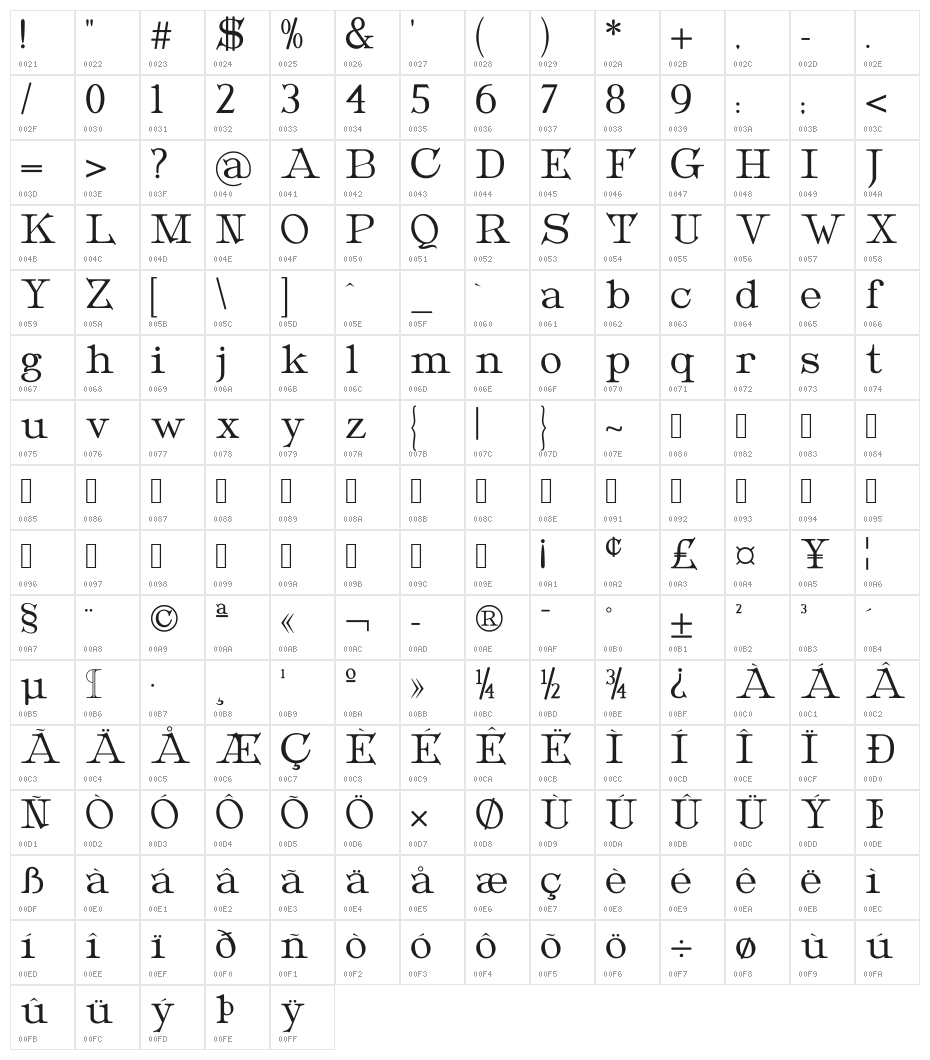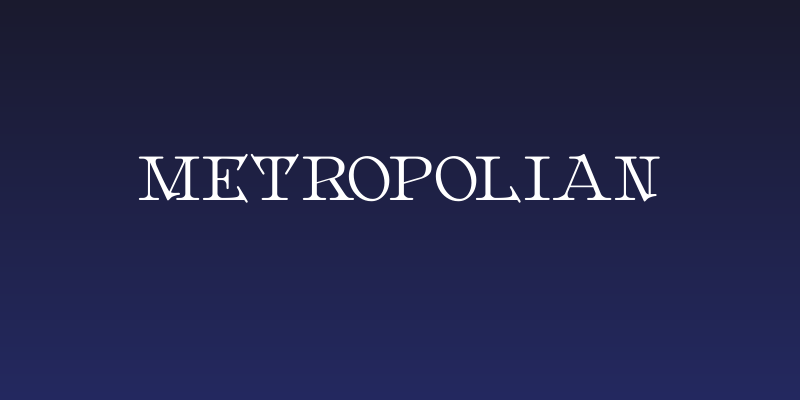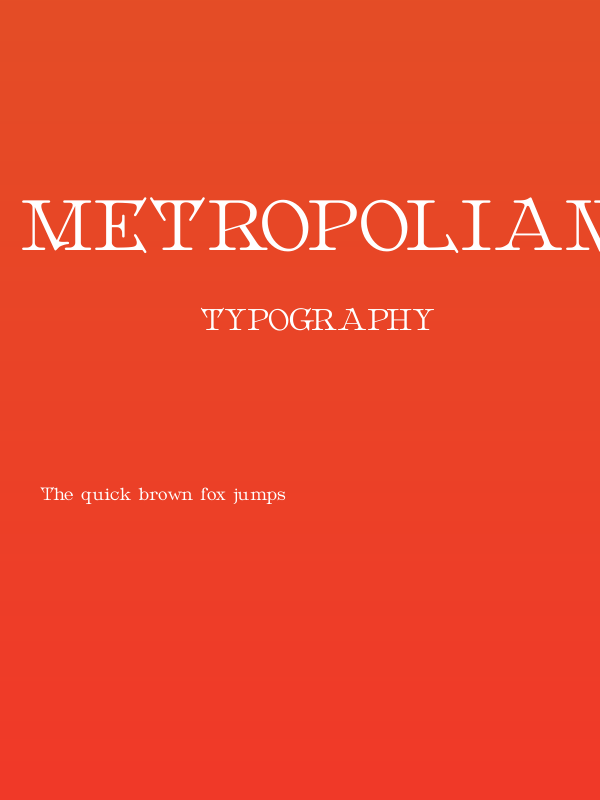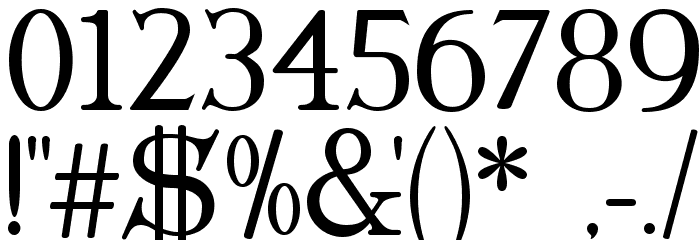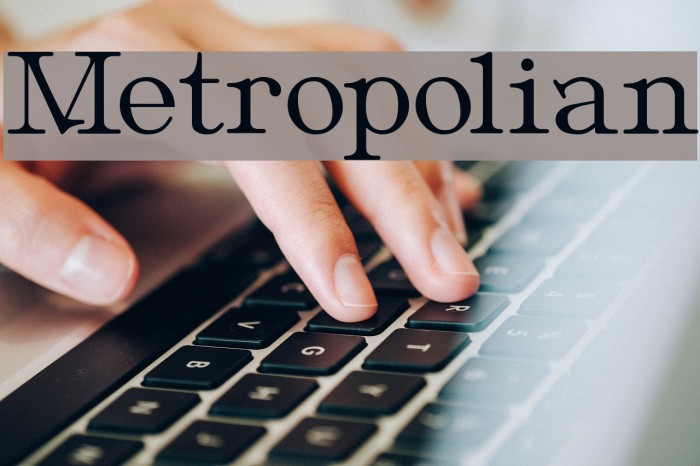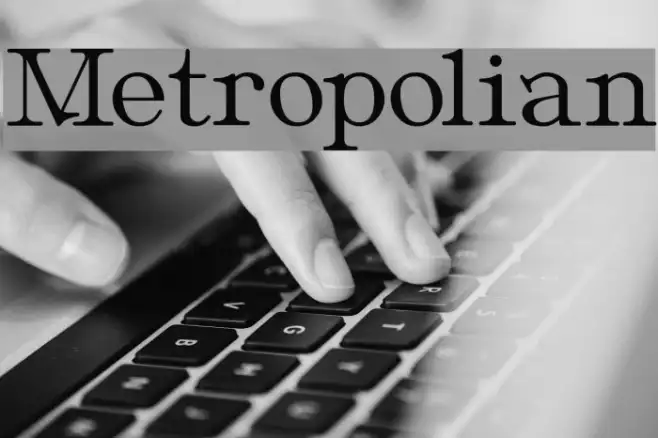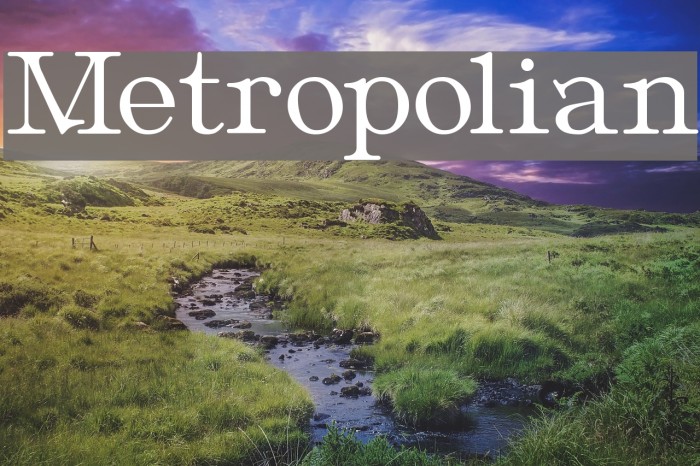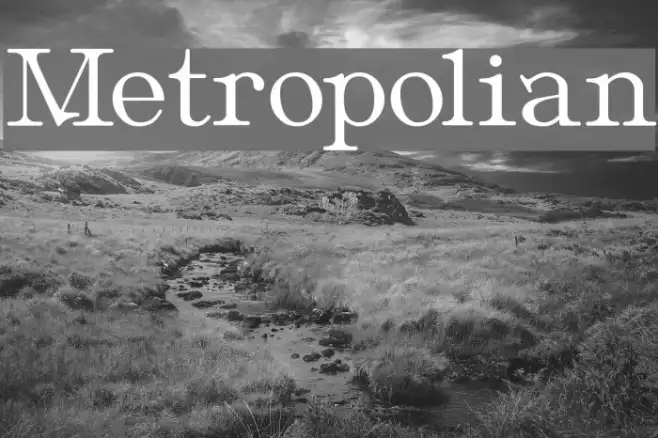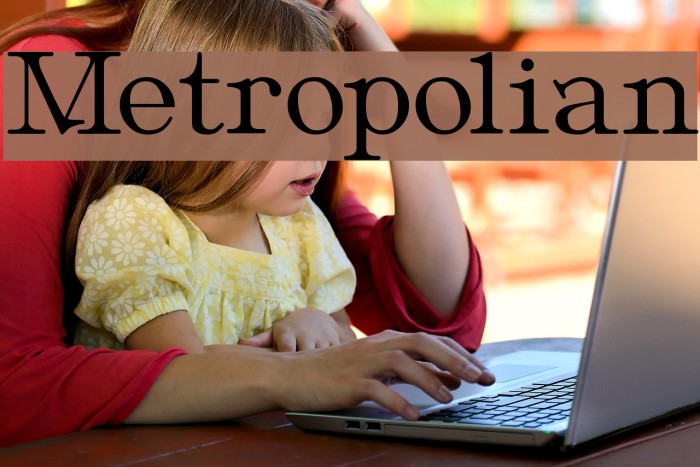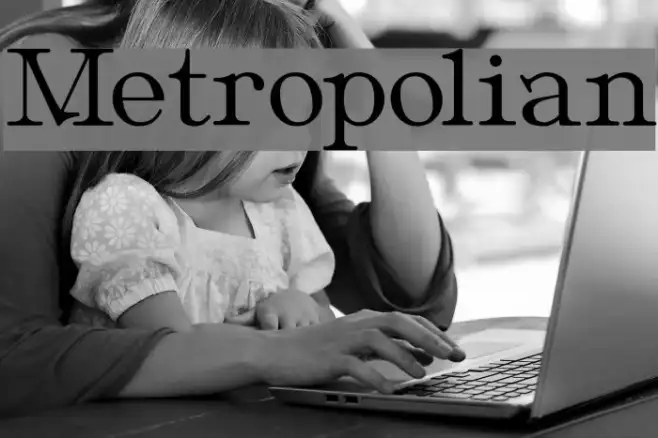
Metropolian Font
Metropolian Description
This font features a classic serif style with elegant, sharp serifs and a moderate contrast between thick and thin strokes. The uppercase letters are bold and commanding, while the lowercase letters maintain a refined and sophisticated appearance. The numerals are clear and distinct, making them easily readable. Special characters are designed with the same attention to detail, ensuring consistency across all glyphs. The overall design is reminiscent of traditional typography, offering a timeless and professional look.
| Proposed Projects | Ideal for editorial design, book covers, formal invitations, and branding projects that require a touch of elegance and tradition. |